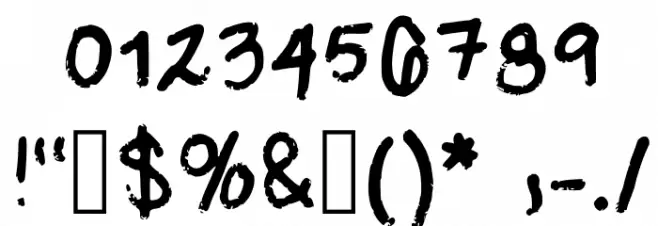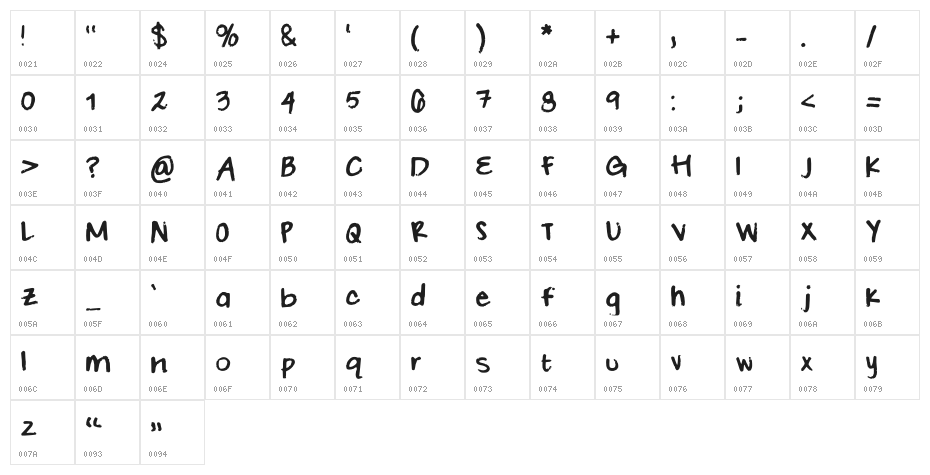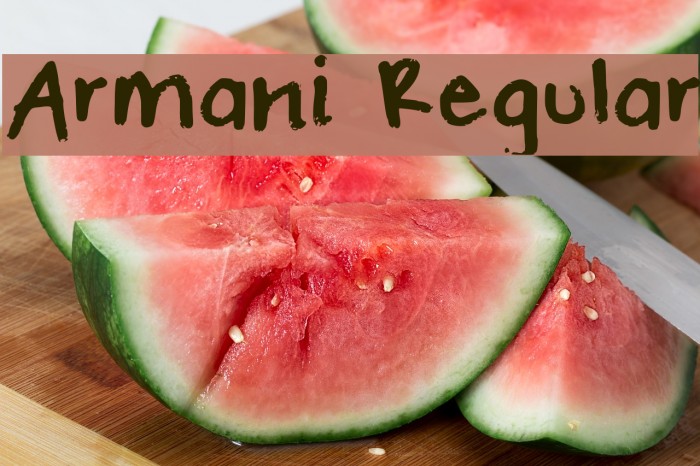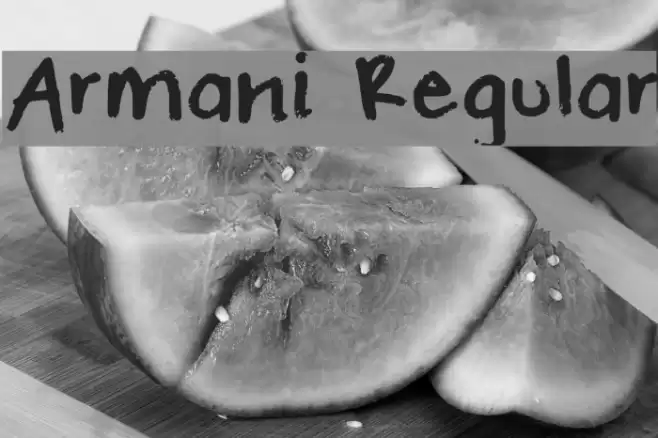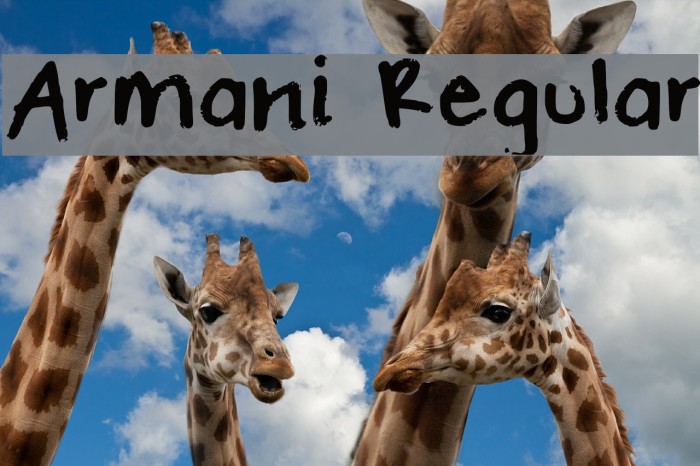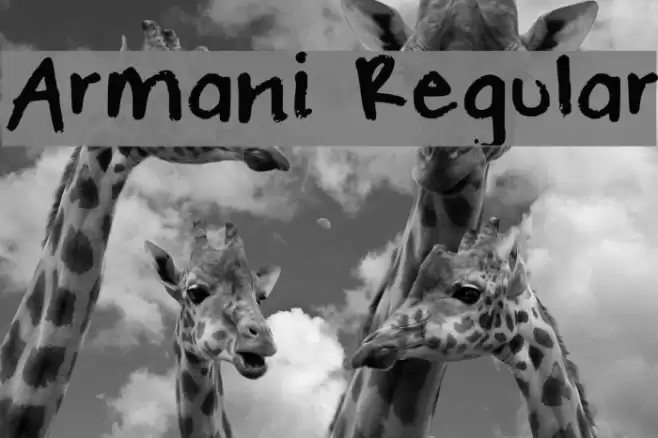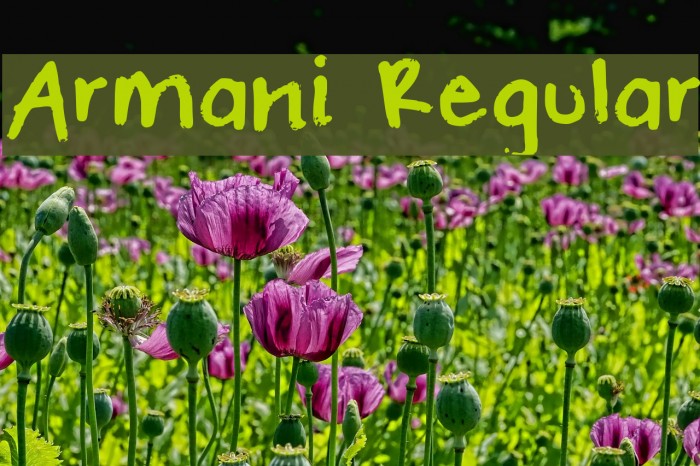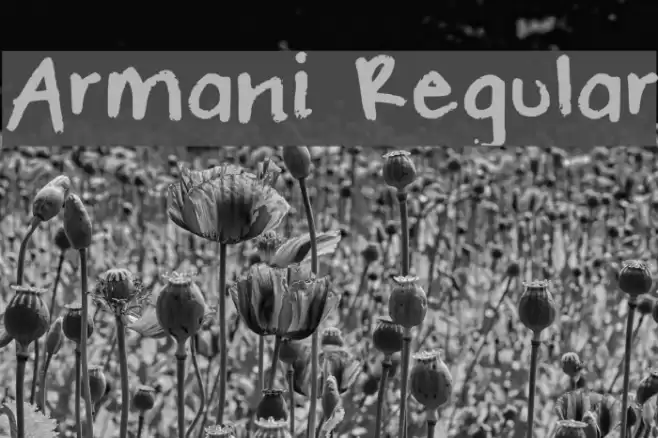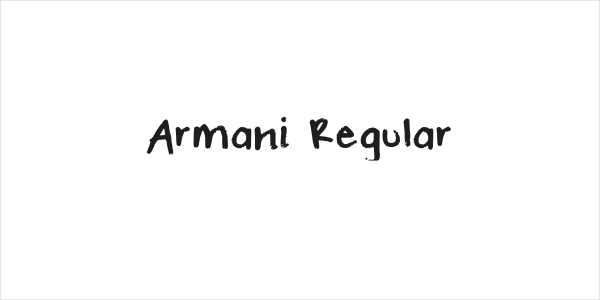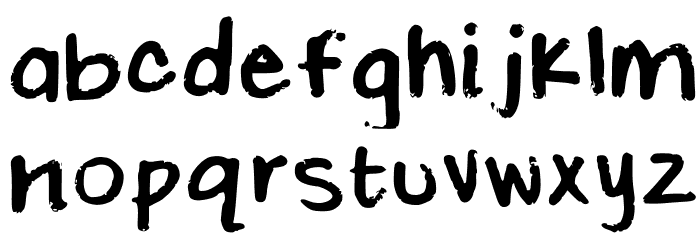
Armani Regular Font
Armani Regular Description
This font features a bold and expressive style with a hand-painted appearance. The characters are slightly irregular, giving it a dynamic and artistic feel. The strokes are thick and vary in width, adding to the font's energetic and lively character. The uppercase and lowercase letters maintain a consistent style, with rounded edges and a slightly rough texture that suggests a brush or marker tool. The numbers and special characters follow the same aesthetic, ensuring a cohesive look across all glyphs. This font is ideal for projects that require a personal touch or a creative flair.
| Proposed Projects | Ideal for creative projects such as posters, branding, packaging, and artistic designs that require a bold and personal touch. |